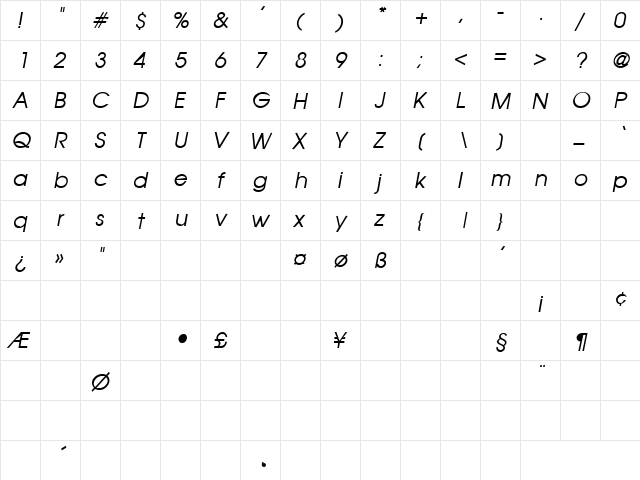
Confused 5 Regular Font Preview
Confused 5 Regular
Design Context for Confused 5 Typeface
Confused 5 is a composed and adaptable typeface that performs quietly and consistently across a wide range of design contexts.